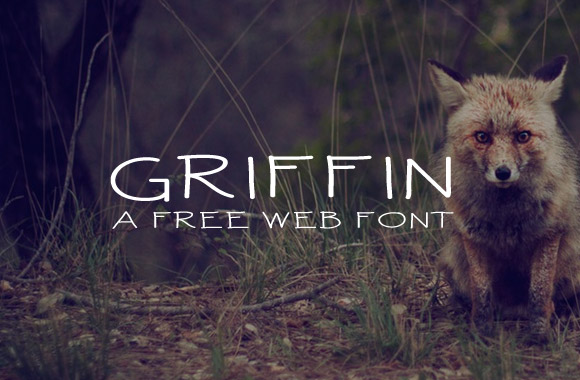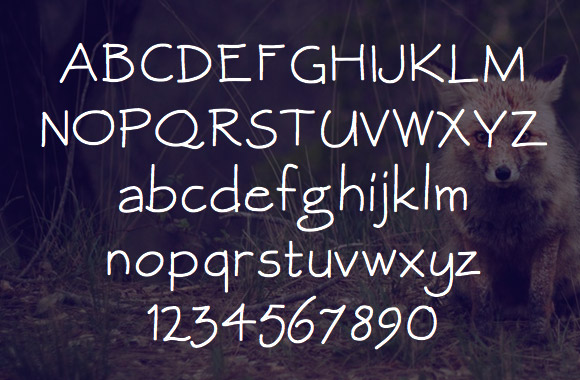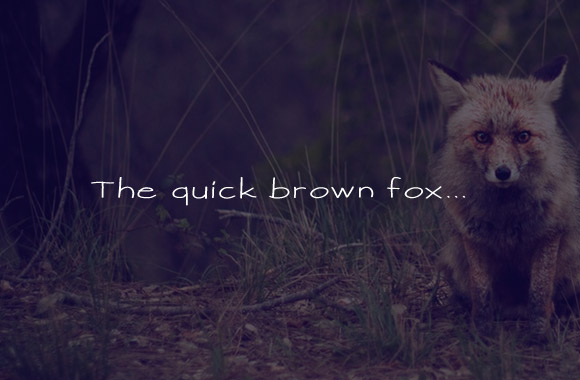
Griffin – A Web Font Kit
Griffin is a clean hand written web font. It includes all of the formats needed for displaying on the web. The download also includes CSS and demo HTML.